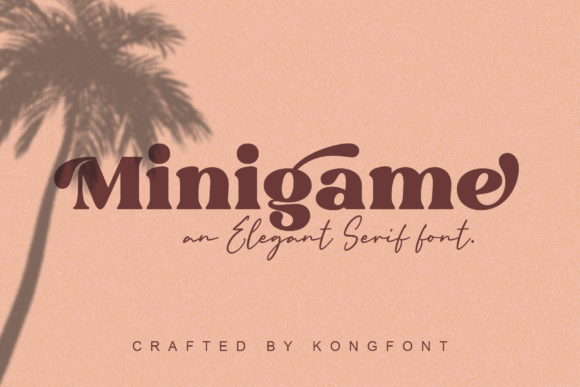
Welcome to the realm of Minigame, an extraordinary serif font family that radiates creativity and charm. The brainchild of Freebies and lovingly crafted by Kong Font Studio, Minigame is the epitome of modern typography that enchants crafters and designers alike.
Minigame's inherent playfulness and distinctive curves make it an ideal font for those seeking to add a touch of whimsy and uniqueness to their creative projects. This chubby serif font exudes a playful character, making it an excellent choice for crafting captivating logos, quirky posters, playful invitations, or simply adding a dash of cheer to any written content. Its friendly appearance invites readers to delve deeper into the depths of your imagination and discover the magic of creative expression.